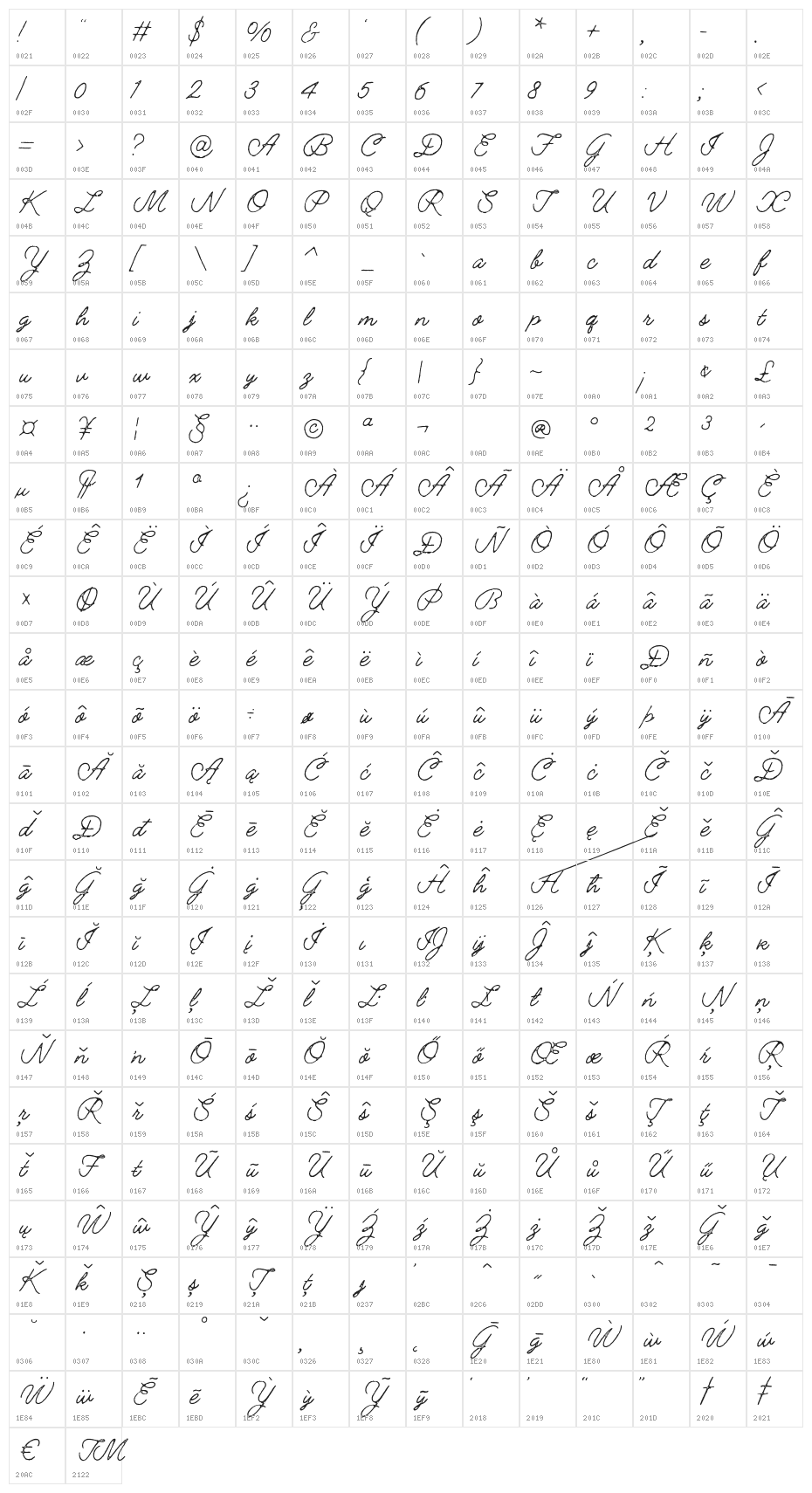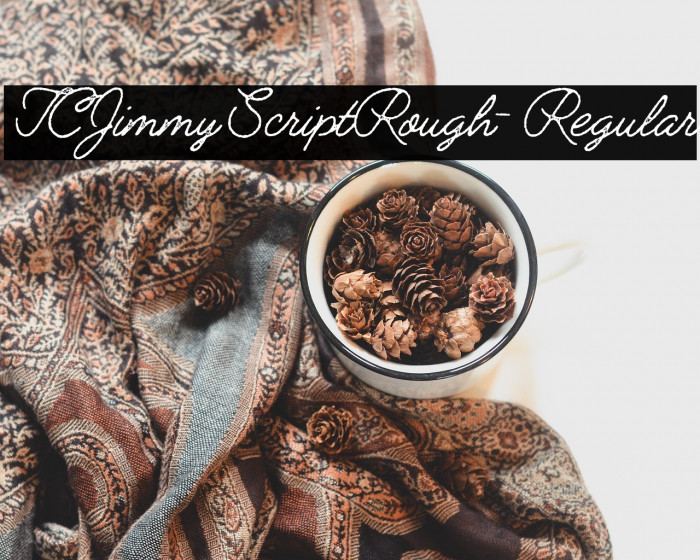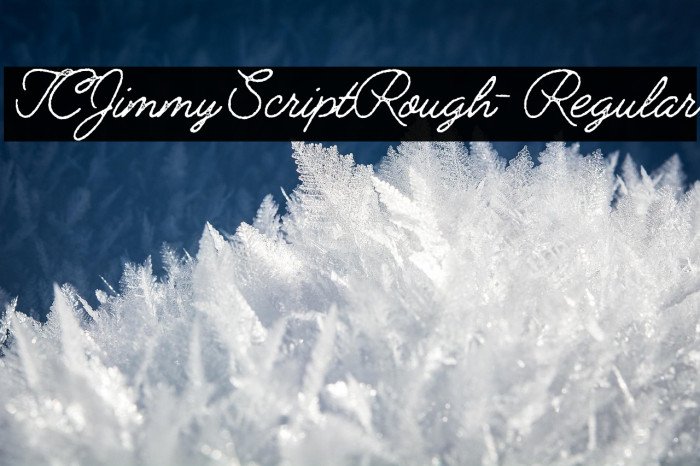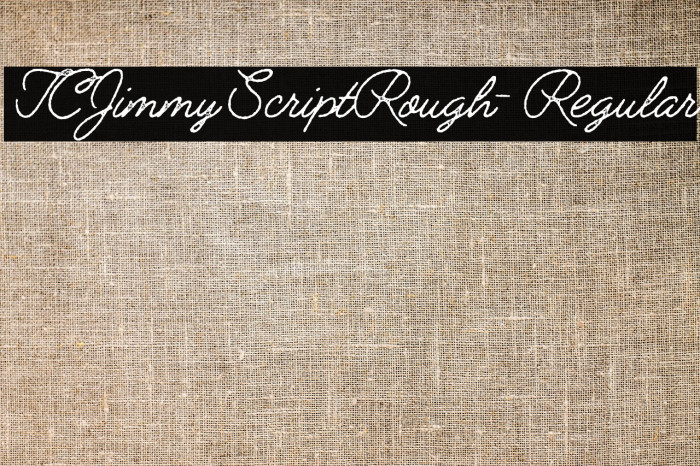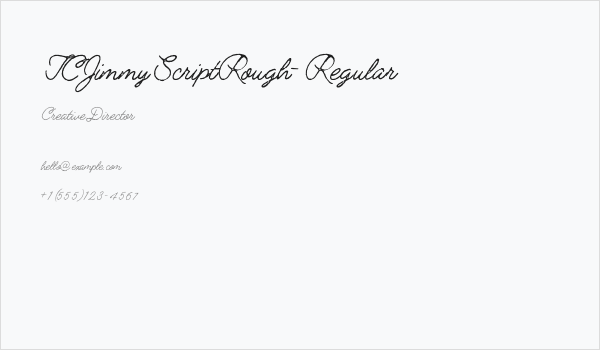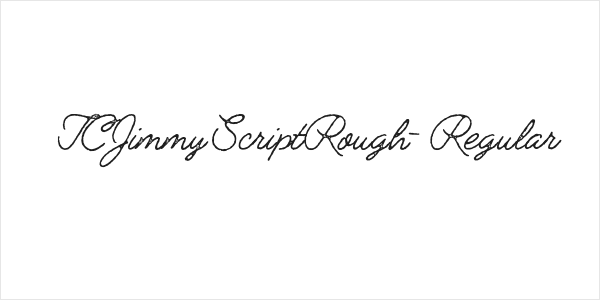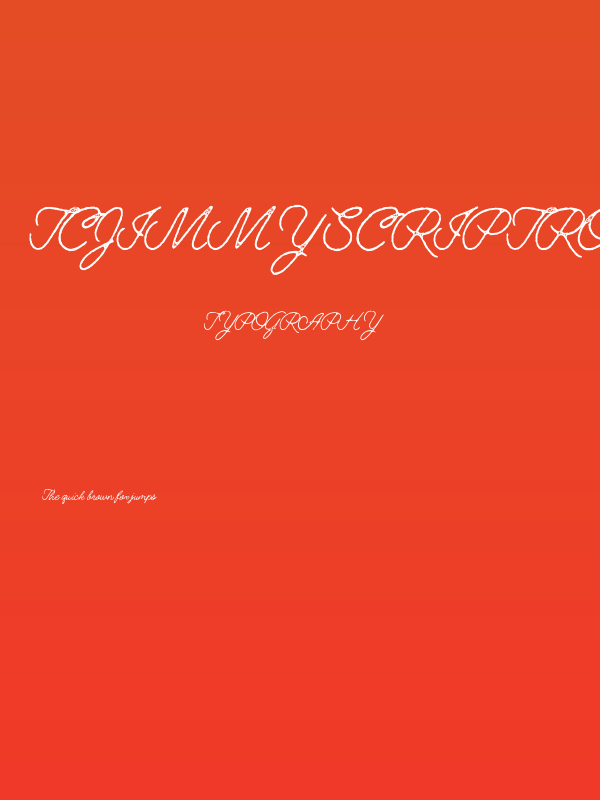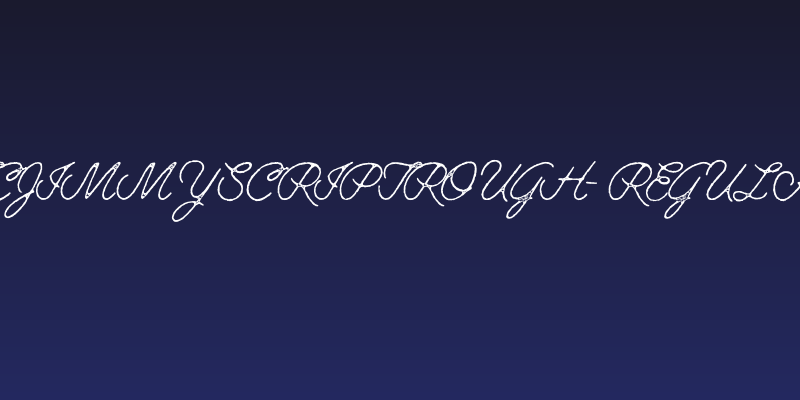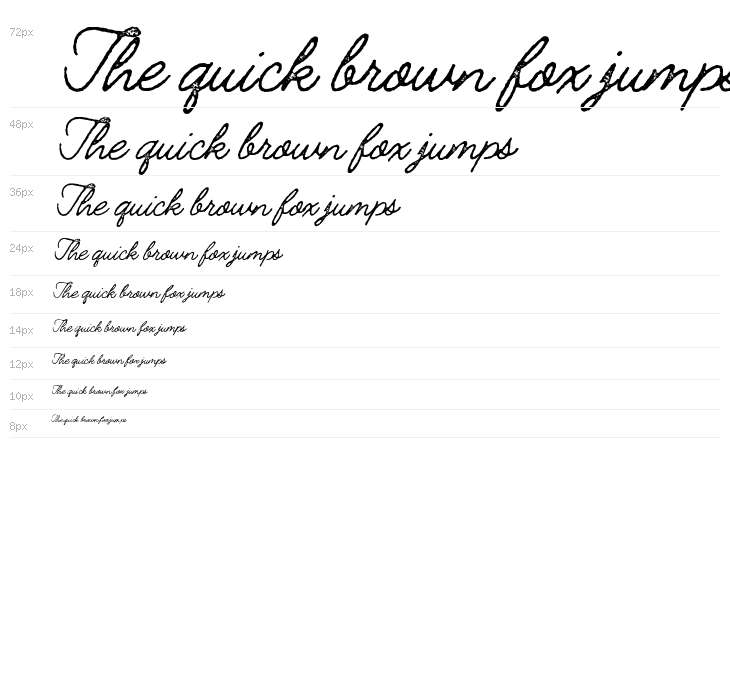
TCJimmyScriptRough-Regular Font
TCJimmyScriptRough-Regular Description
This font exudes a handwritten, script-like quality with a rough, textured appearance that adds a sense of authenticity and charm. The letters are elegantly connected, creating a fluid and continuous flow that mimics natural handwriting. The uppercase letters are slightly larger and more pronounced, while the lowercase letters maintain a consistent size and style. Numbers and special characters are designed to complement the overall script aesthetic, maintaining the same rough texture. The font's unique style makes it suitable for projects that require a personal touch or an artistic flair.
| Proposed Projects | Ideal for wedding invitations, greeting cards, personal branding, and artistic projects that require a personal touch. |